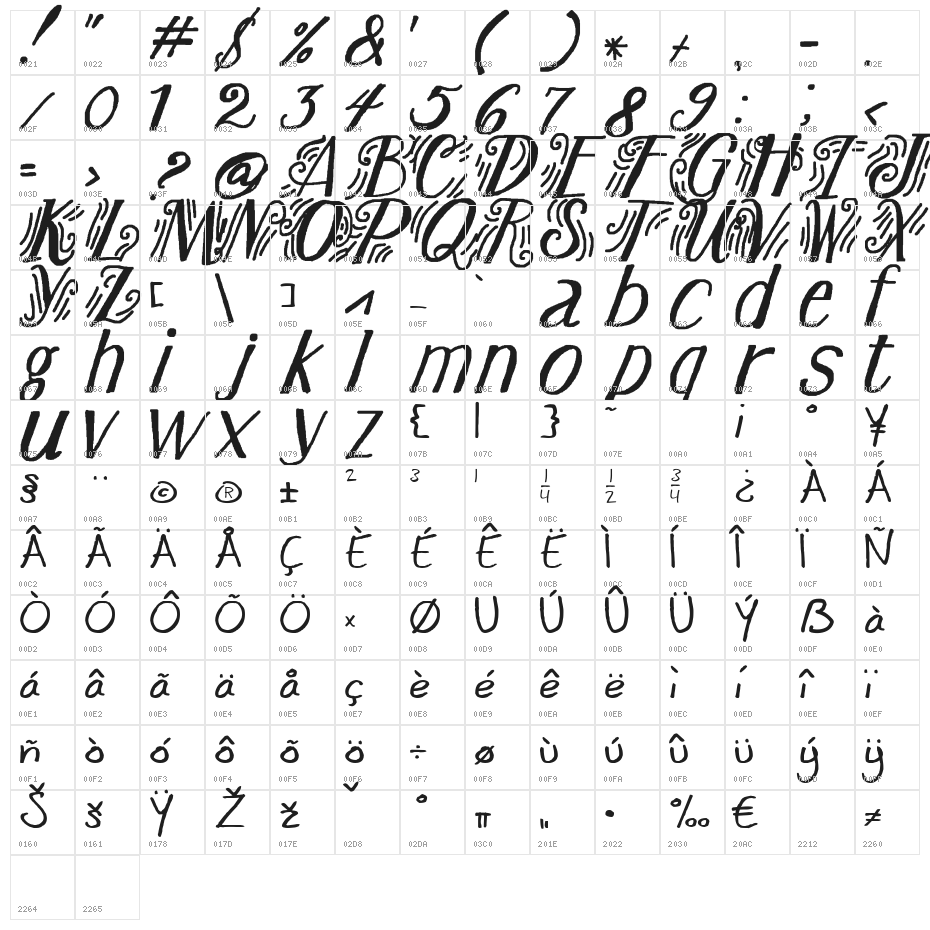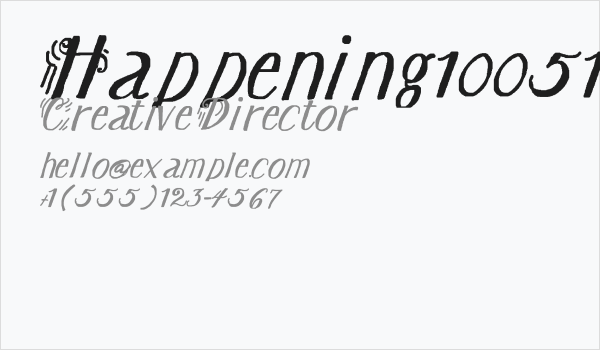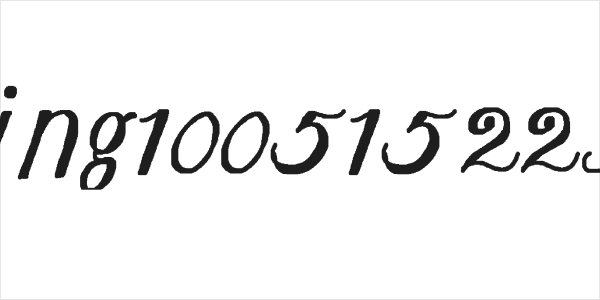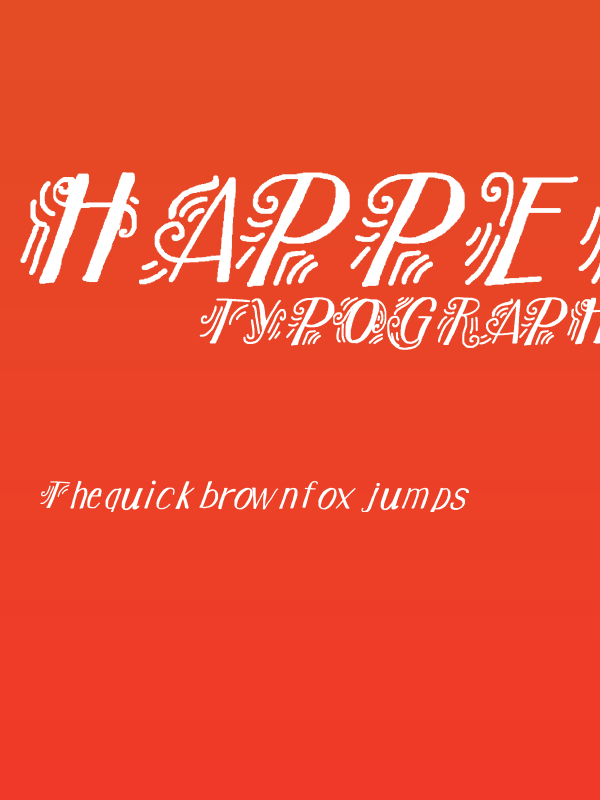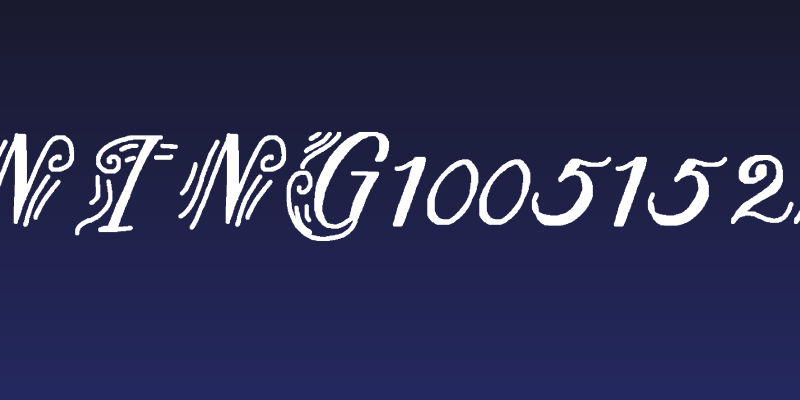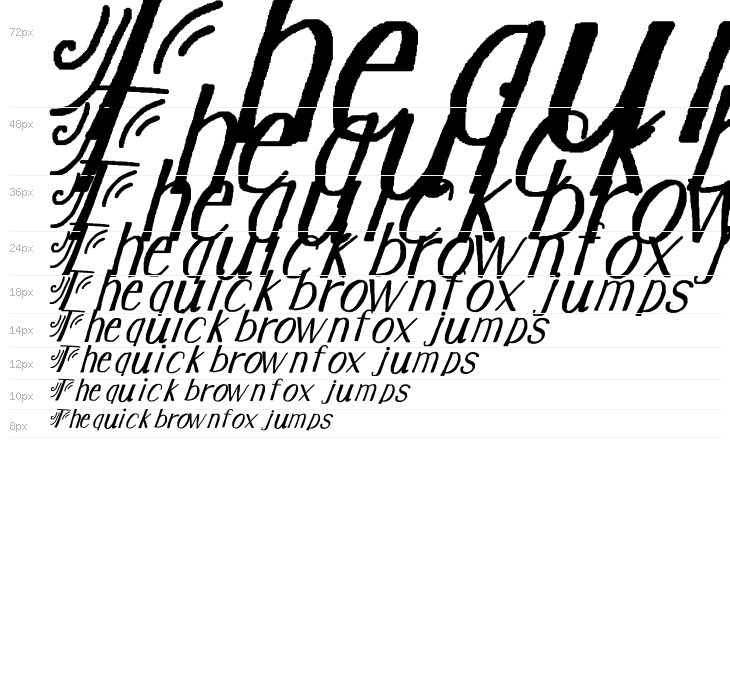
Happening100515223705854 Font
Happening100515223705854 Description
This font features a unique and decorative style with a distinct flair. The uppercase letters are embellished with intricate lines and curves, giving them an ornate appearance. The lowercase letters are more streamlined but maintain a sense of elegance and fluidity. The numerals are bold and slightly italicized, matching the overall aesthetic of the alphabet. Special characters are designed with the same attention to detail, ensuring consistency throughout. This font is ideal for projects that require a touch of sophistication and creativity.